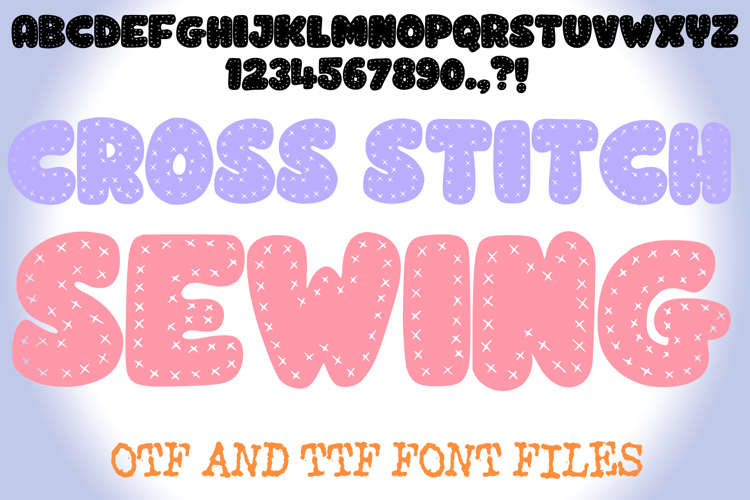
Cross Stitch Sewing Handwriting Alphabet Lettering ABC Text
Add a touch of handcrafted charm and cozy creativity to your designs with Cross Stitch Sewing Font! This delightfully unique typeface perfectly blends the soft, playful aesthetics of bubbly letterforms with the intricate, comforting texture of classic cross-stitching. It's more than just a font; it's an ode to the art of crafting, designed to bring a warm, inviting, and personalized feel to any creative project.
Each character in Cross Stitch Sewing Font features a plump, rounded outline, with its interior meticulously filled with a charming cross-stitch pattern. This unique visual effect evokes the look of hand-stitched fabric, embroidery, or a lovingly made textile, making it an ideal choice for DIY project labels, craft fair signage, quilting patterns, children's clothing brands, nursery decor, or any design calling for a unique blend of softness and handmade detail.
Whether you're creating adorable invitations, designing artisanal product packaging, crafting cheerful social media posts for crafters, or adding a cozy touch to digital art, this font will bring an undeniable sense of fun, originality, and a vibrant, affectionate aesthetic to your work. Its clear yet bubbly forms ensure readability while delivering a memorable visual experience.
If you're looking to infuse your designs with a sense of playful craft, charming texture, and an undeniable cozy vibe, Cross Stitch Sewing Font is your ultimate tool. Stitch your creativity into every design!